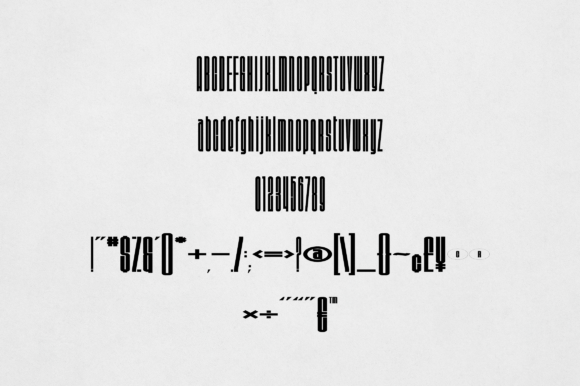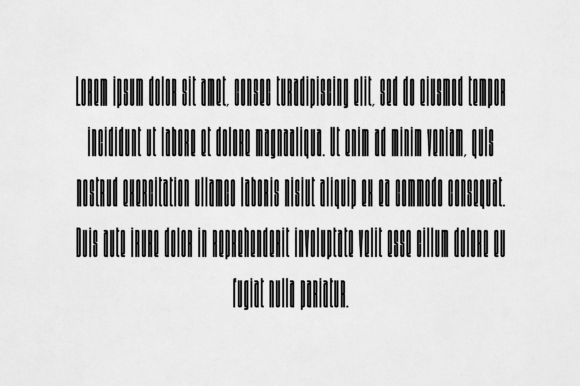
Cynthria Font: Elevate Your Typography with Elegance and Versatility
In the world of typography, a font can make all the difference in creating a lasting impression. For designers and crafters looking to add a touch of sophistication and uniqueness to their projects, the Cynthria Font is an excellent choice. This elegant and versatile display font is designed to make your typography truly stand out, whether you’re working on a logo, branding, headline, or plain text.
What Makes Cynthria Font Special?
Cynthria is not just another font; it’s a statement piece. Its elegant design and versatile nature make it perfect for a wide range of applications, from branding projects and home-ware designs to product packaging and magazine headers. This font’s ability to enchant every piece of text it’s applied to makes it a valuable addition to any designer’s toolkit.
One of the key benefits of the Cynthria Font is its adaptability. Here are some of the many ways you can use this stunning font:
- Branding Projects: Create a memorable brand identity with Cynthria. Its elegant and sophisticated look makes it ideal for logos, business cards, and other branding materials.
- Home-Ware Designs: Add a touch of elegance to your home-ware designs, such as labels, tags, and packaging, with this beautiful font.
- Product Packaging: Make your product stand out on the shelves with Cynthria. It’s perfect for labels, packaging, and any text that needs to make an impact.
- Magazine Headers: Use Cynthria to create eye-catching headers and titles for your magazine or digital publication.
- Text Overlay: For a stylish and sophisticated look, use Cynthria as a text overlay on any background image. It’s a great way to add contrast and make your text pop.
Why Choose Cynthria Font?
With so many fonts available, why choose Cynthria? Here are a few compelling reasons:
- Uniqueness: Cynthria offers a unique look that will set your designs apart from the rest. Its elegant and sophisticated design ensures that your typography will be truly unique.
- Versatility: This font is incredibly versatile, making it suitable for a wide range of design projects. Whether you’re working on a logo, packaging, or a magazine header, Cynthria will fit right in.
Tips for Using Cynthria Font Effectively
To get the most out of the Cynthria Font, here are a few tips:
- Pair with Complementary Fonts: While Cynthria is stunning on its own, pairing it with complementary fonts can enhance its beauty. Choose fonts that contrast with Cynthria to create visual interest.
- Experiment with Colors: Don’t be afraid to experiment with different colors. Cynthria looks great in bold, bright colors as well as more subtle, muted tones.
- Play with Sizes: Cynthria’s versatility extends to its use in various sizes. Use it for large headlines or smaller text overlays – it’s sure to make an impact either way.
The Cynthria Font is a powerful tool for designers and crafters looking to elevate their typography. Its elegant and versatile design makes it perfect for a wide range of applications, from branding projects and product packaging to magazine headers and text overlays. With Cynthria, you can create truly unique and memorable designs that will leave a lasting impression.